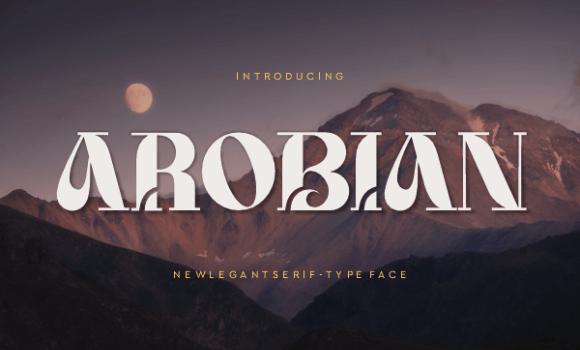
arobian
Arobian Font – Free Download Introduction to Arobian Font AROBIAN is a stylish serif font that seamlessly combines classic elegance with a modern twist. 📸 Preview Gallery 4 images 📌 Product Name Arobian Font 👤 Author sinduamiw 📂 Category Explore